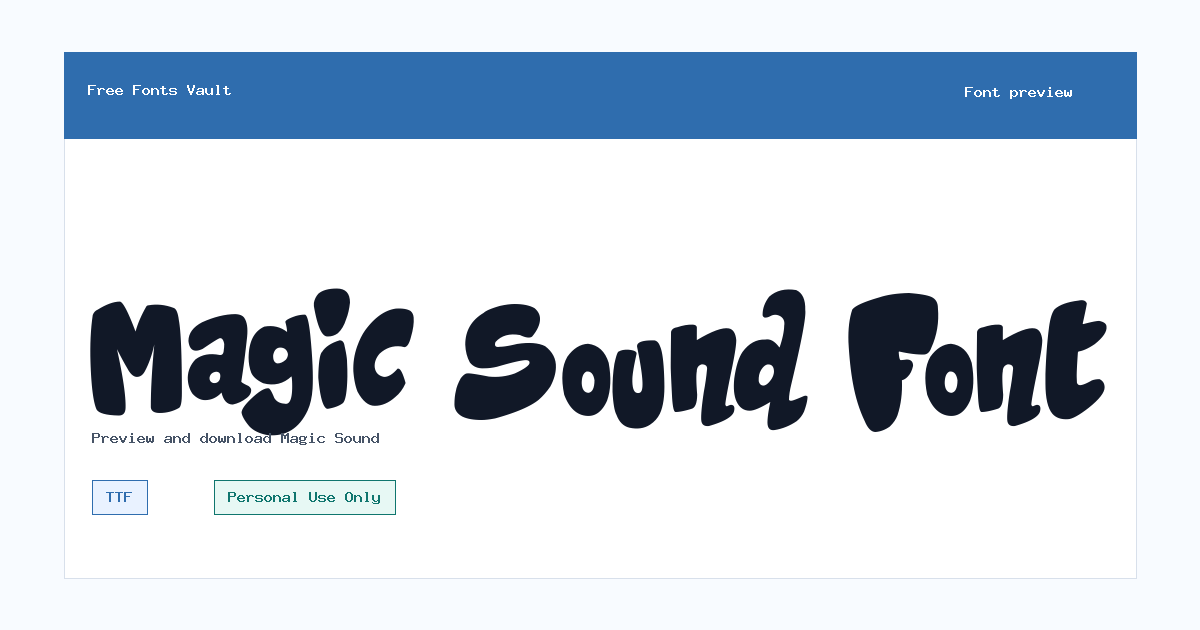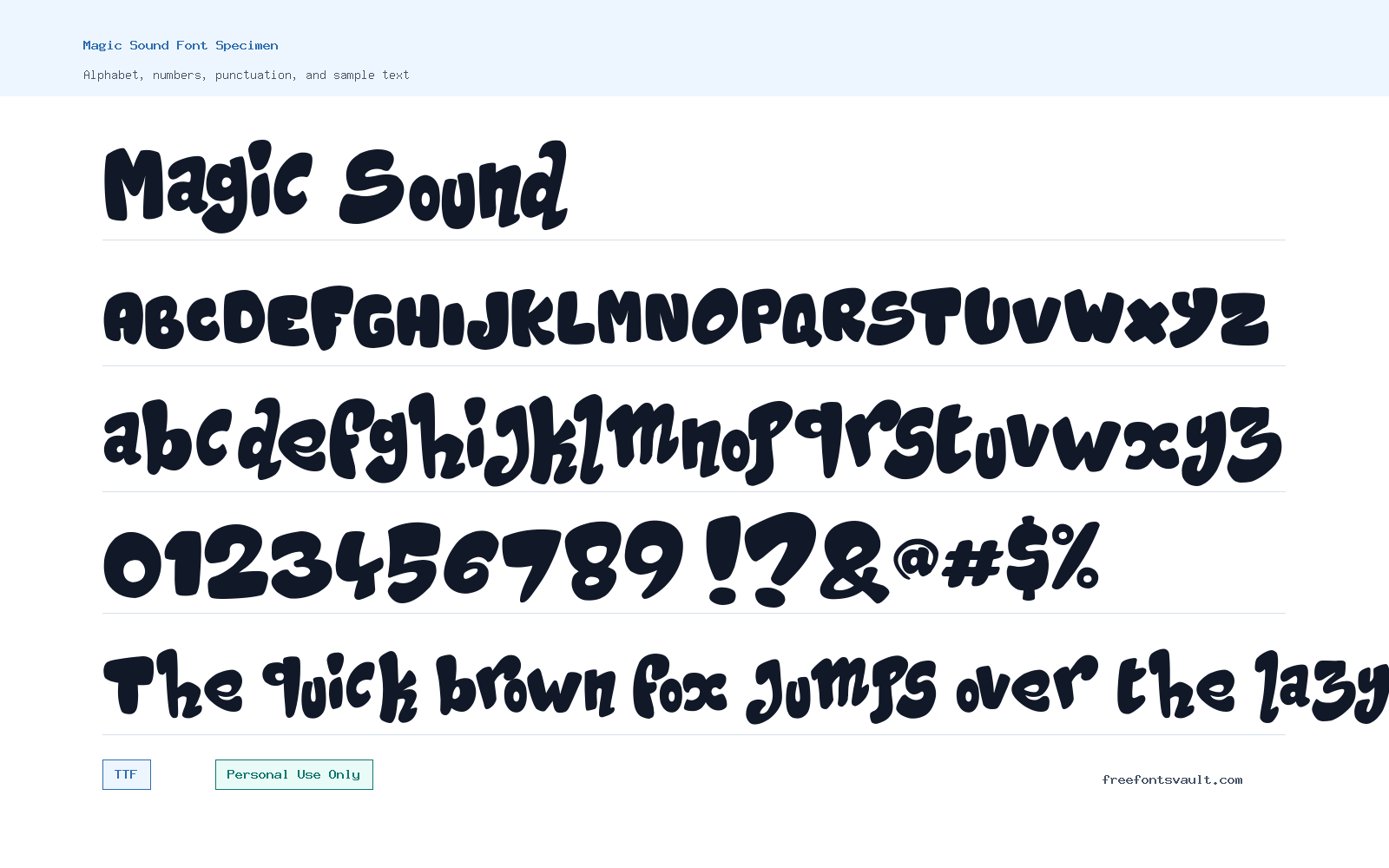
Magic Sound
Magic Sound is a display font by IMAGEX with a strong, decorative look suited to short, attention-grabbing text. It is offered as a TTF font and is marked free for personal use only.
About Magic Sound Font
Magic Sound works best when the text needs personality at a large size. Use it for words that should stand out, such as titles, poster lines, social graphics, headers, stickers, or themed artwork. Because the font is decorative, it is better for short phrases than long paragraphs.
- Regular style with normal weight, useful for display text and short headings
- Posters, thumbnails, banners, and social media graphics
- Short titles, decorative headings, stickers, and personal craft projects
Use Magic Sound for short text where the decorative style can stay readable. Test spacing carefully, especially in all-caps settings, and avoid using it for long body text or small interface labels. Also test it against both dark and light backgrounds. A decorative sound-themed display font can look very different once color, outline, or shadow effects are added, so keep the final layout simple enough for the letter shapes to stay clear. A quick test with your final colors will show whether the decorative edges stay readable.
Who designed Magic Sound?
Magic Sound is credited to IMAGEX.
What is Magic Sound best used for?
It is best for short display text such as posters, headers, social graphics, thumbnails, and personal creative projects.
Before using it in a finished design, preview the exact word length you need and keep extra effects subtle so the letters stay easy to read.